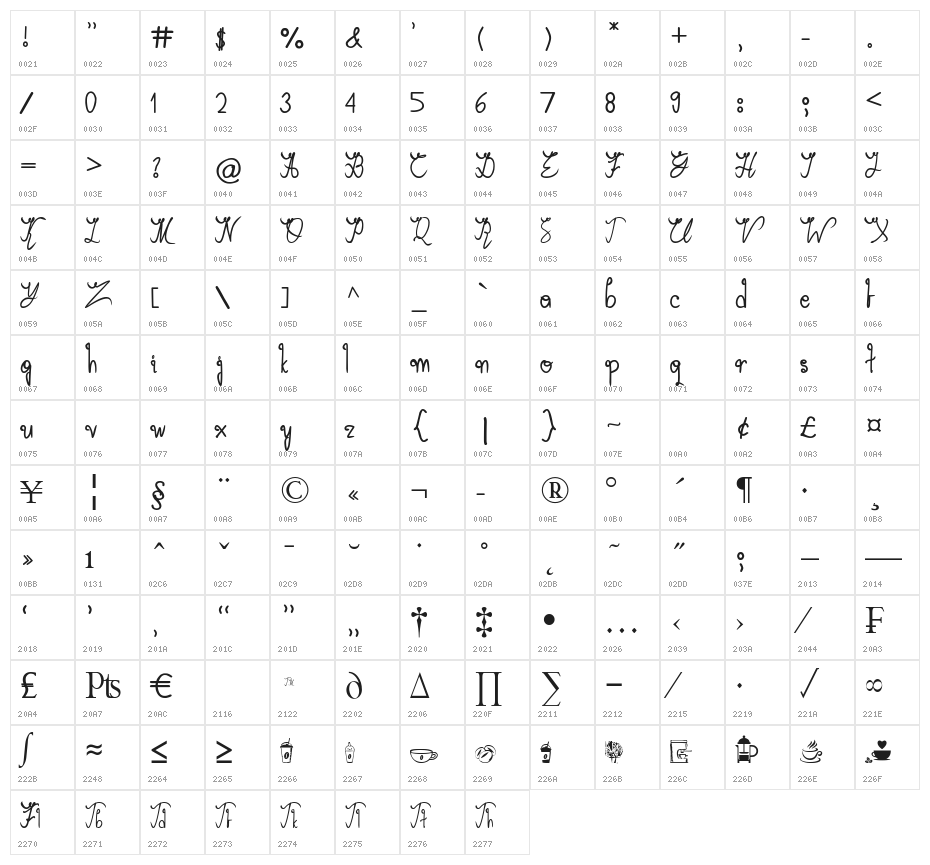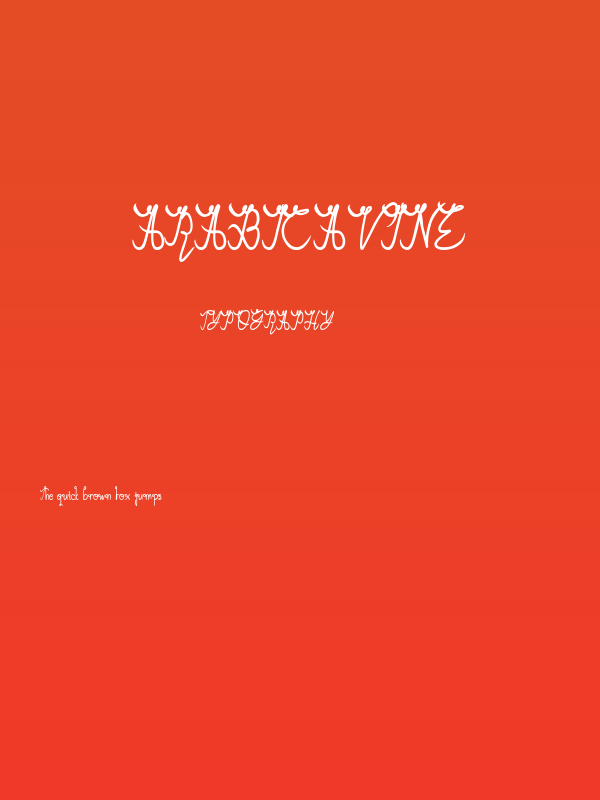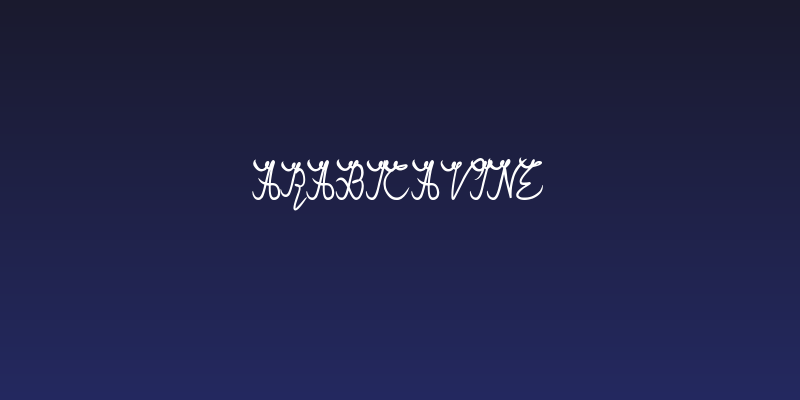
ArabicaVine Font
ArabicaVine Description
This font features an elegant and decorative style with a flowing, cursive design. The uppercase letters are adorned with intricate loops and swirls, giving them a sophisticated and artistic appearance. The lowercase letters maintain a consistent style, with elongated ascenders and descenders that add to the font's graceful look. The numerals are uniquely styled to match the overall aesthetic, and the special characters are crafted with the same attention to detail. This font is ideal for projects that require a touch of elegance and creativity.
| Proposed Projects | Ideal for wedding invitations, greeting cards, logos, and branding materials that require a sophisticated touch. |